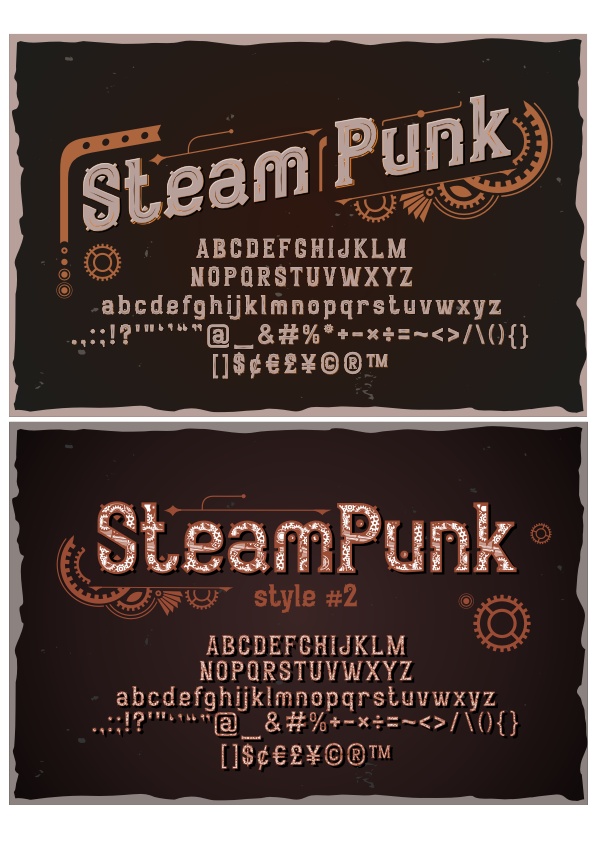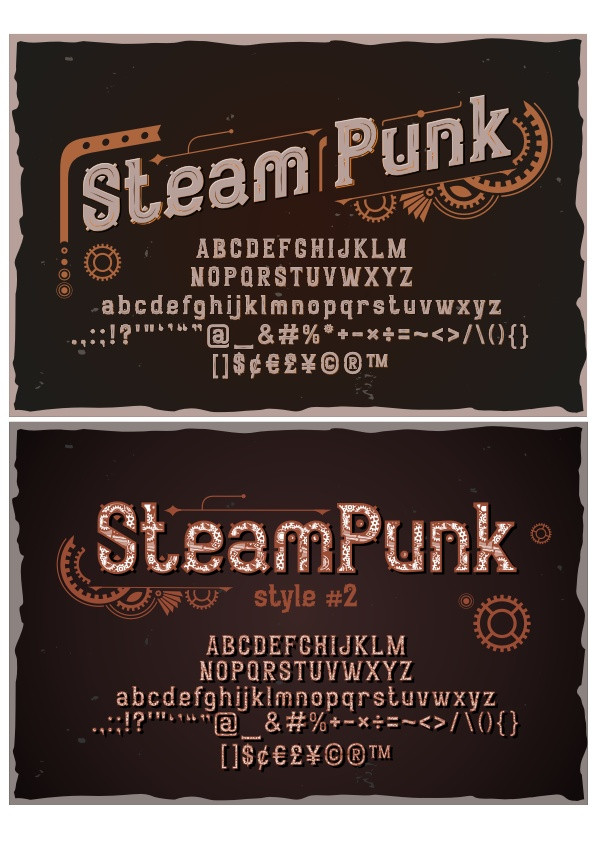
Steampunk Style Vintage Decorative Alphabet Fonts Free Vector
Two styles of steampunk-themed vintage decorative alphabet fonts displayed with uppercase, lowercase, numbers, punctuation, and currency symbols on dark backgrounds with gear and mechanical design elements.